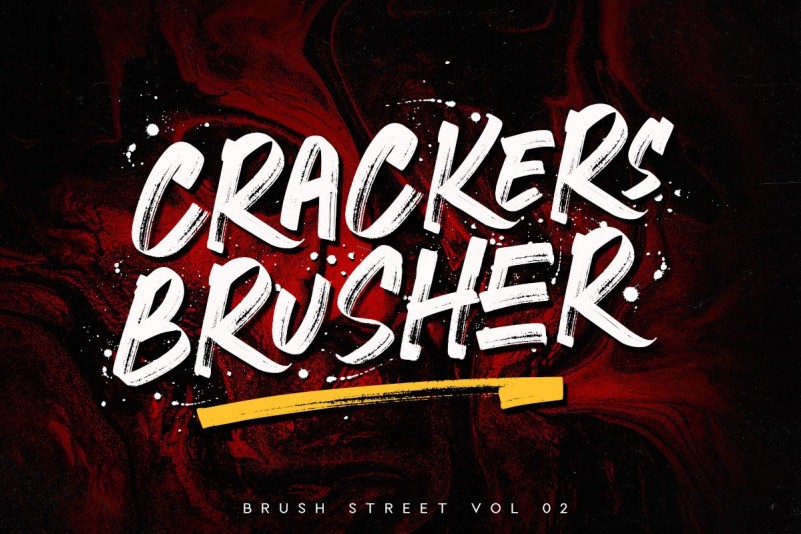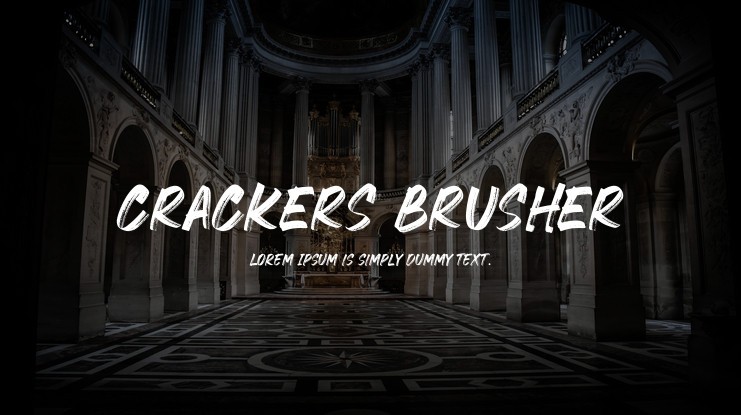
Crackers Brusher Font
Crackers Brusher Font is a top-tier text generator commonly used for tasks such as printing on t-shirts and playing card designs.
And he releases it thru variety foundry for the primary time. This has taken the fundamentals of rustico bold font. This font is used inside the picture detection method.